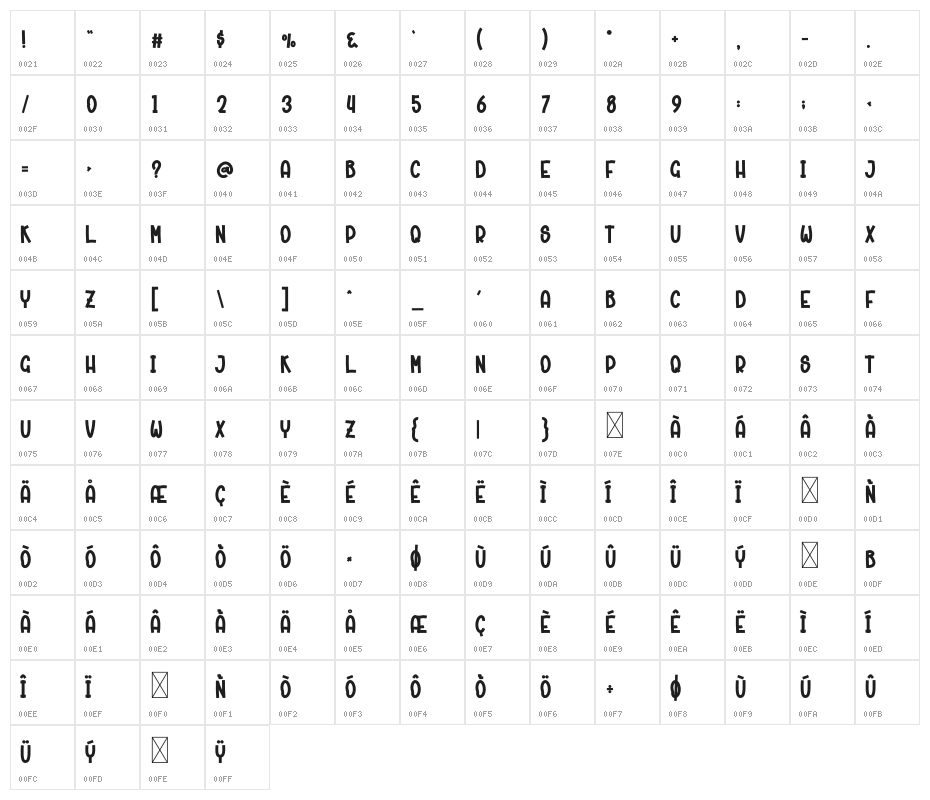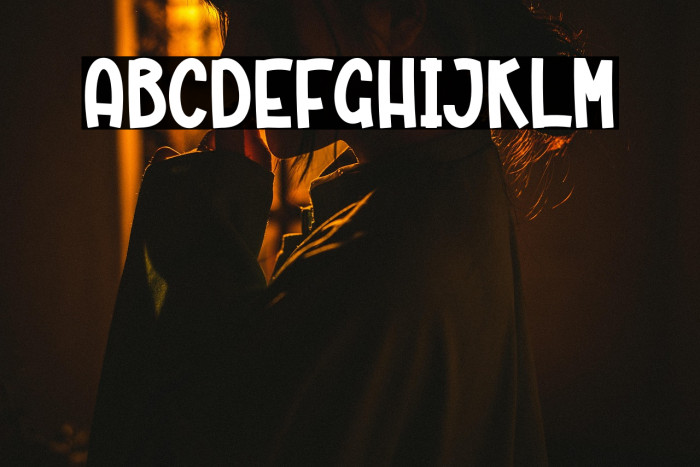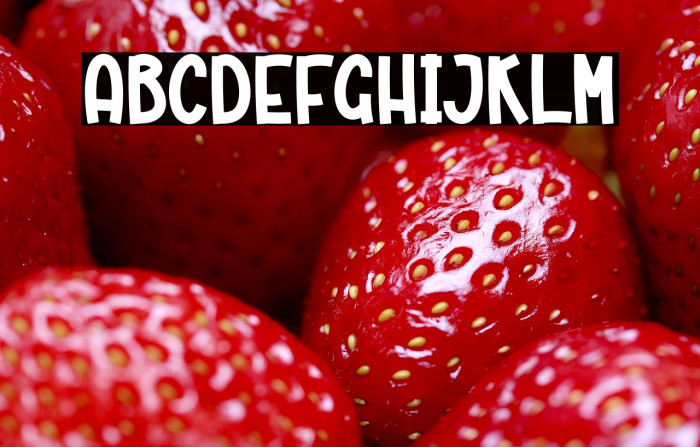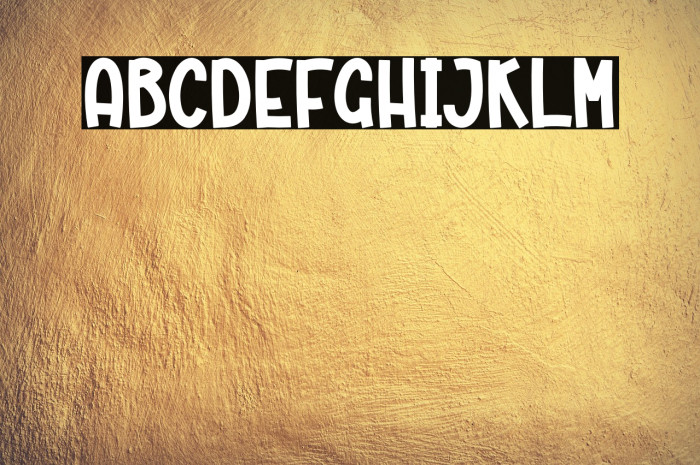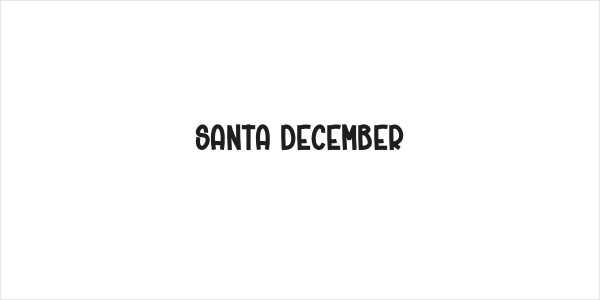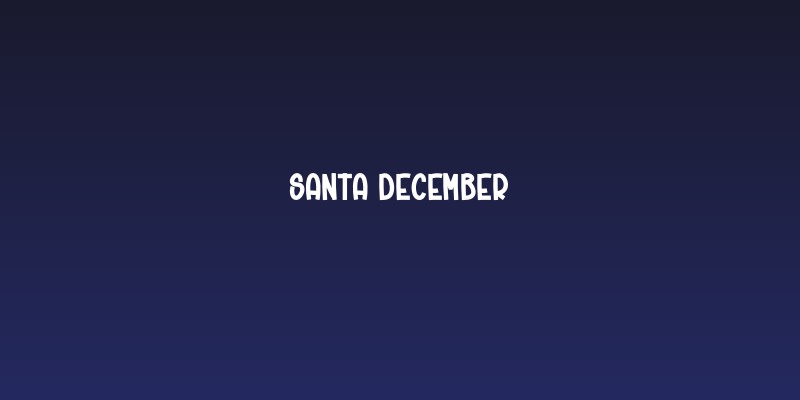
Santa December Font
Santa December Description
This playful and bold font features a whimsical and slightly irregular design, giving it a hand-drawn appearance. The characters are thick and rounded, with a slightly uneven baseline that adds to its charm. The uppercase and lowercase letters maintain a consistent style, while the numerals and special characters complement the overall look. This font exudes a fun and casual vibe, making it ideal for creative and informal projects.
| Overall Style | Playful, Whimsical |
| Use Case | Headlines, Logos, Invitations |
| Proposed Projects | Ideal for children's books, party invitations, greeting cards, and playful branding. |